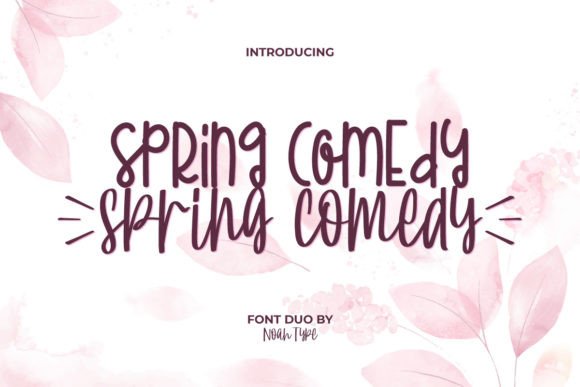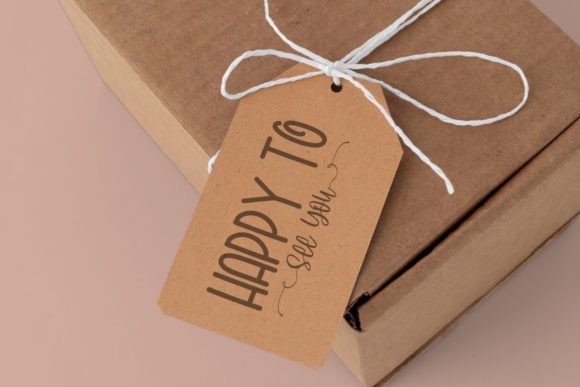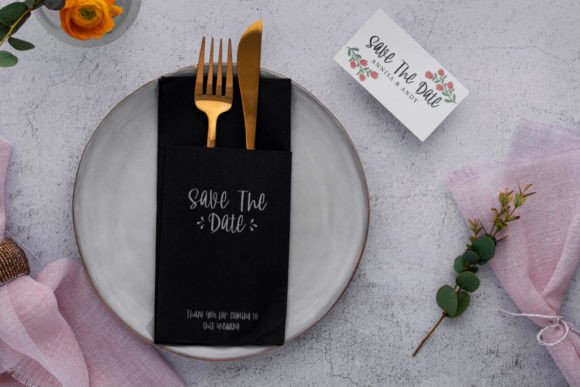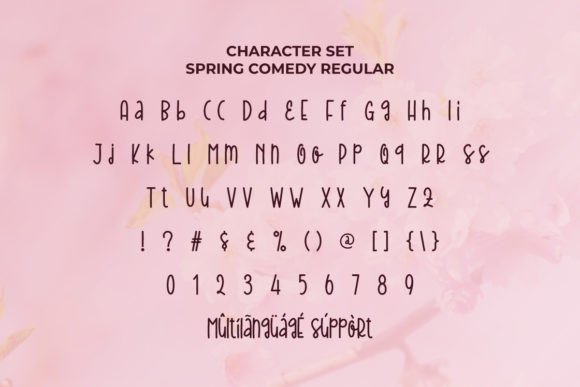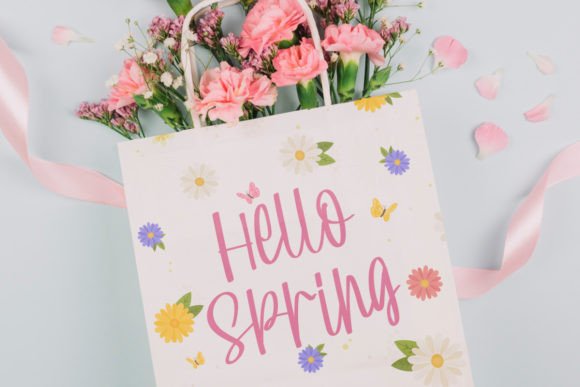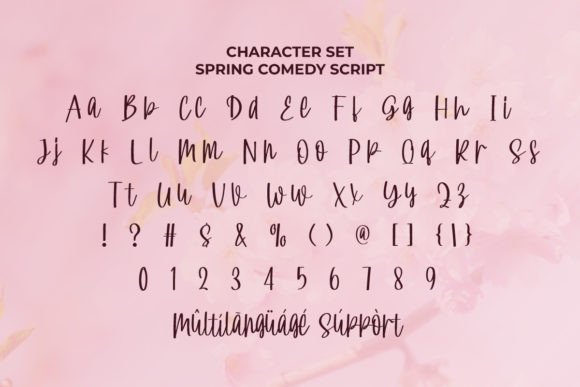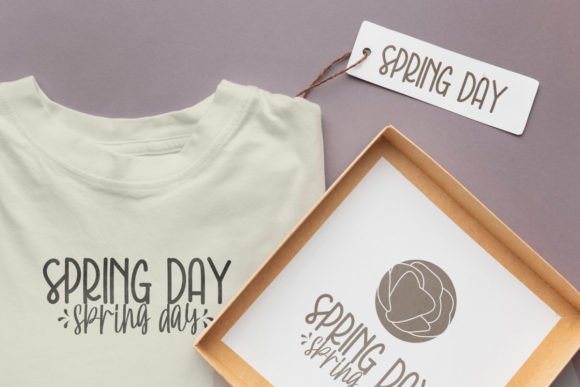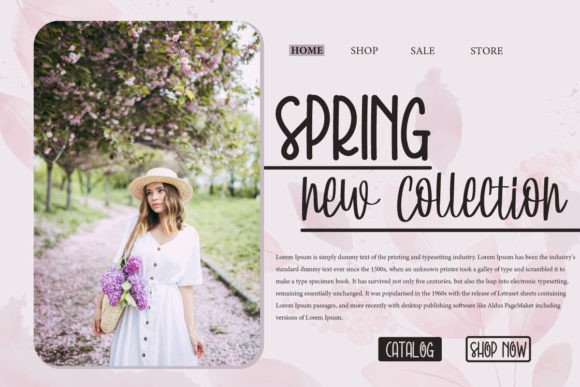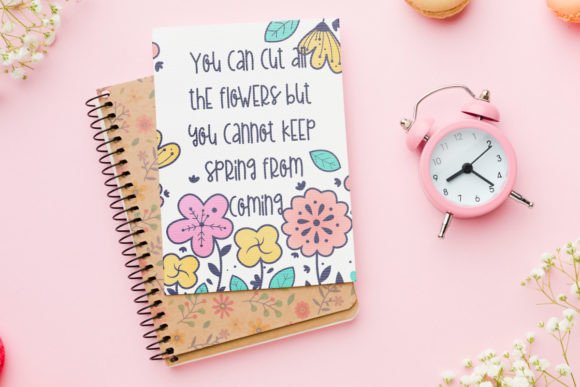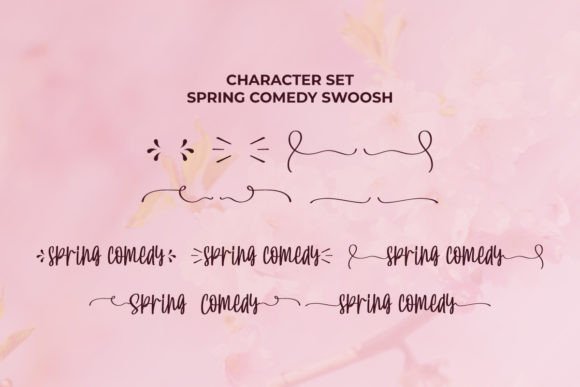
Spring Comedy
About Spring Comedy
Spring Comedy is a beautiful and unique font. The font has charming calligraphy and a balanced style that can be combined with all kinds of design ideas.